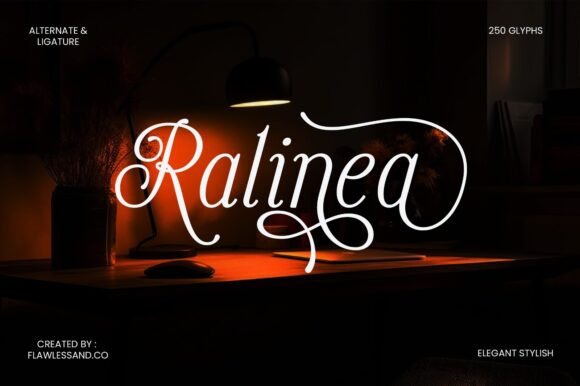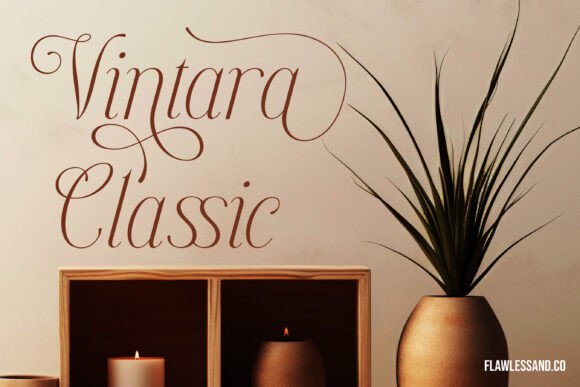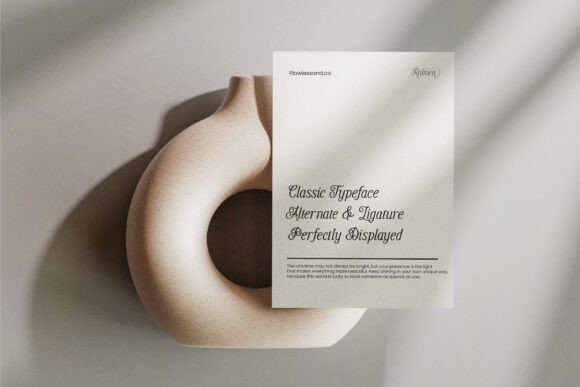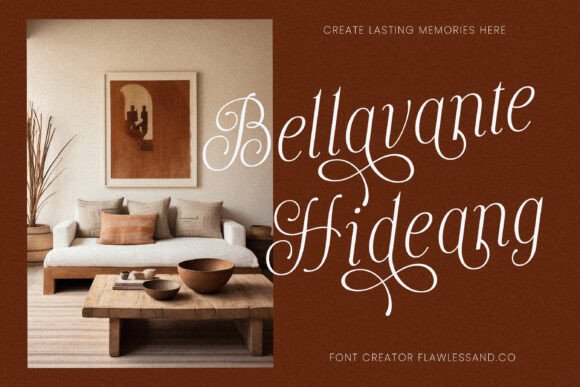
Ralinea Font: Elegant Script for Wedding Invitations & Branding
About the Ralinea Font
Get ready to be inspired by Ralinea Font, a fresh and dynamic typeface for modern creators. Ralinea is a graceful script font that embodies elegance and fluidity. Its smooth strokes and delicate curves create a sophisticated and timeless appeal, making it perfect for wedding invitations, branding, product packaging, and social media designs. Whether used for logos or stylish headlines, Ralinea adds a touch of charm and refinement to any project.
Ralinea’s elegant fluidity makes it ideal for projects requiring a touch of sophistication, such as high-end branding, luxury packaging, or wedding stationery. Its graceful curves are also well-suited for short headlines and impactful quotes, adding a sense of refinement. However, its delicate nature makes it less suitable for body text or UI elements where legibility at smaller sizes is crucial.
For optimal impact, pair Ralinea with a clean sans-serif font like Lato or Open Sans for body copy, ensuring readability. A geometric sans-serif like Montserrat could also create a striking contrast, emphasizing Ralinea’s organic forms. For a more traditional feel, a classic serif like Garamond would complement its timeless elegance.
Ralinea projects an overall mood of refined elegance and understated luxury. It is best suited for brands aiming for a sophisticated and timeless image, conveying quality and prestige.
Ralinea Font Usage Examples
Ralinea Font Example